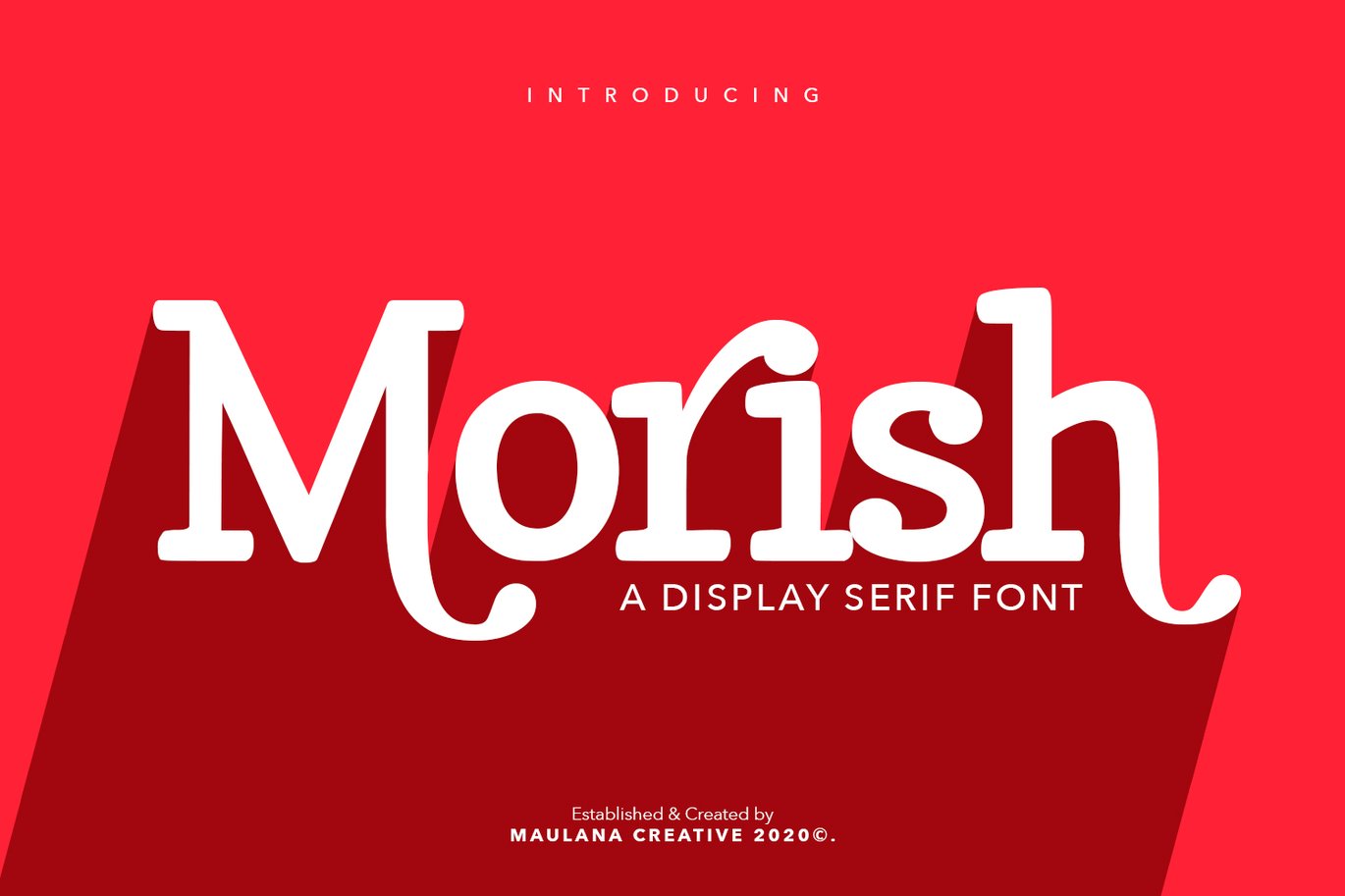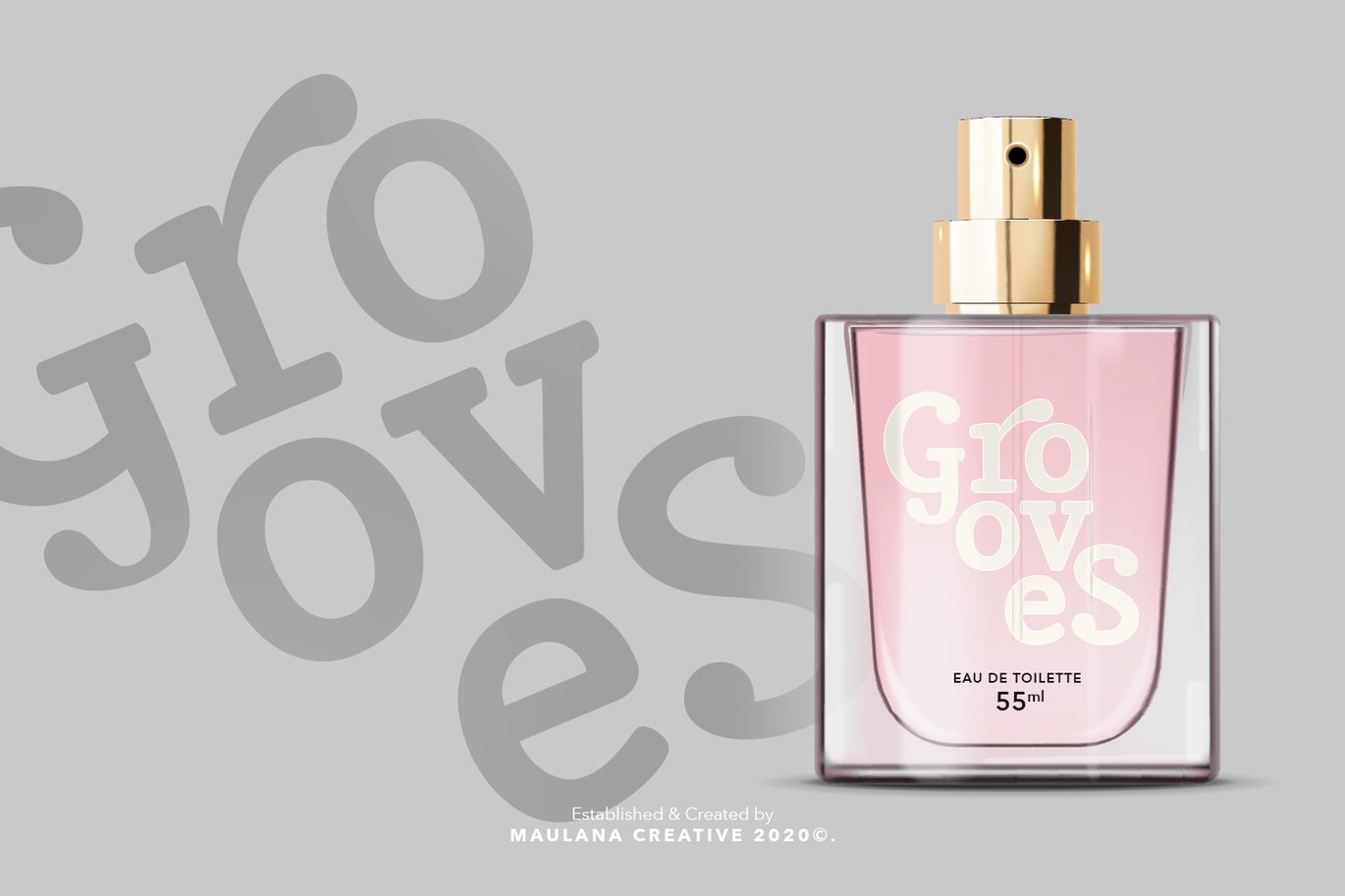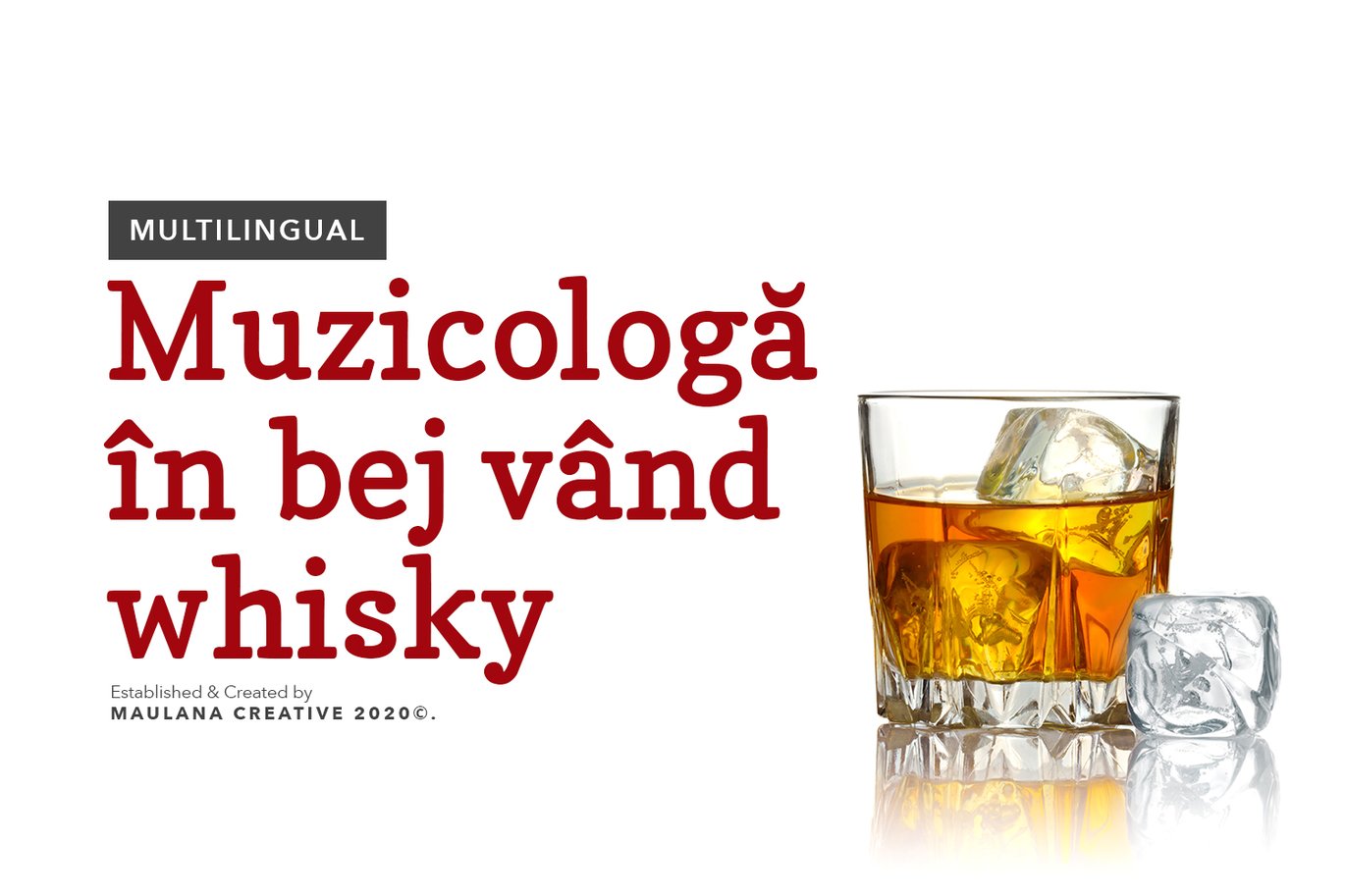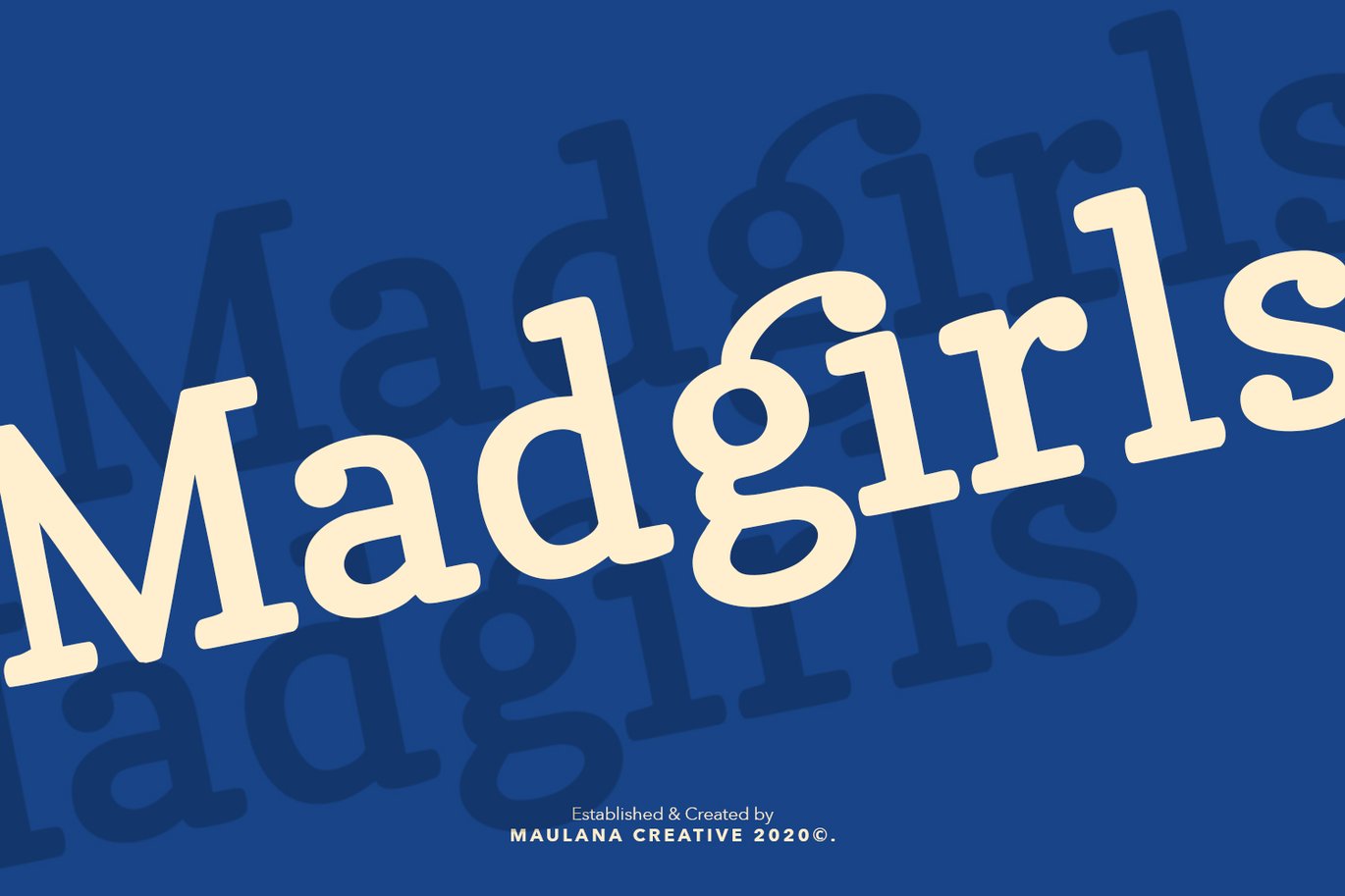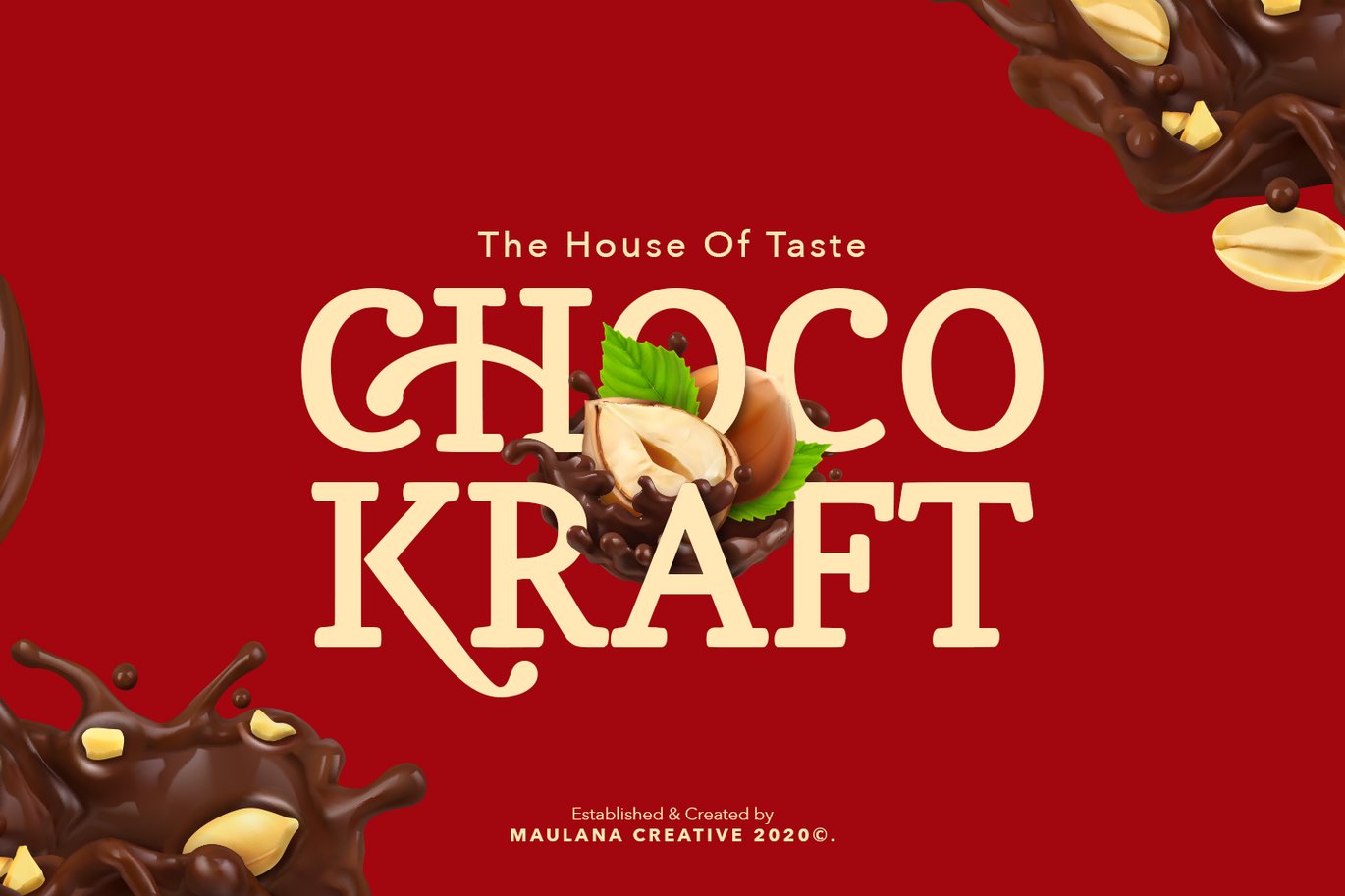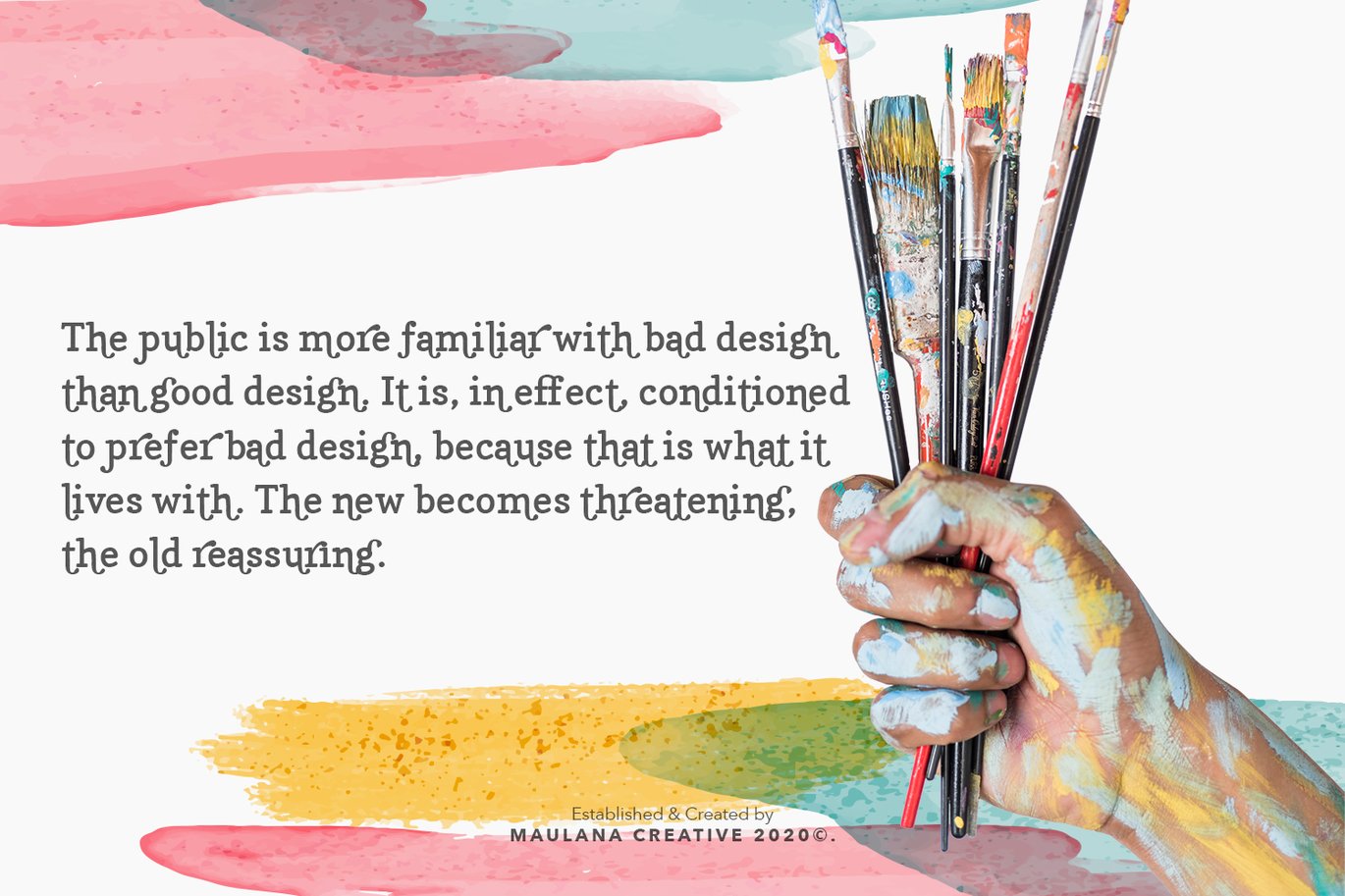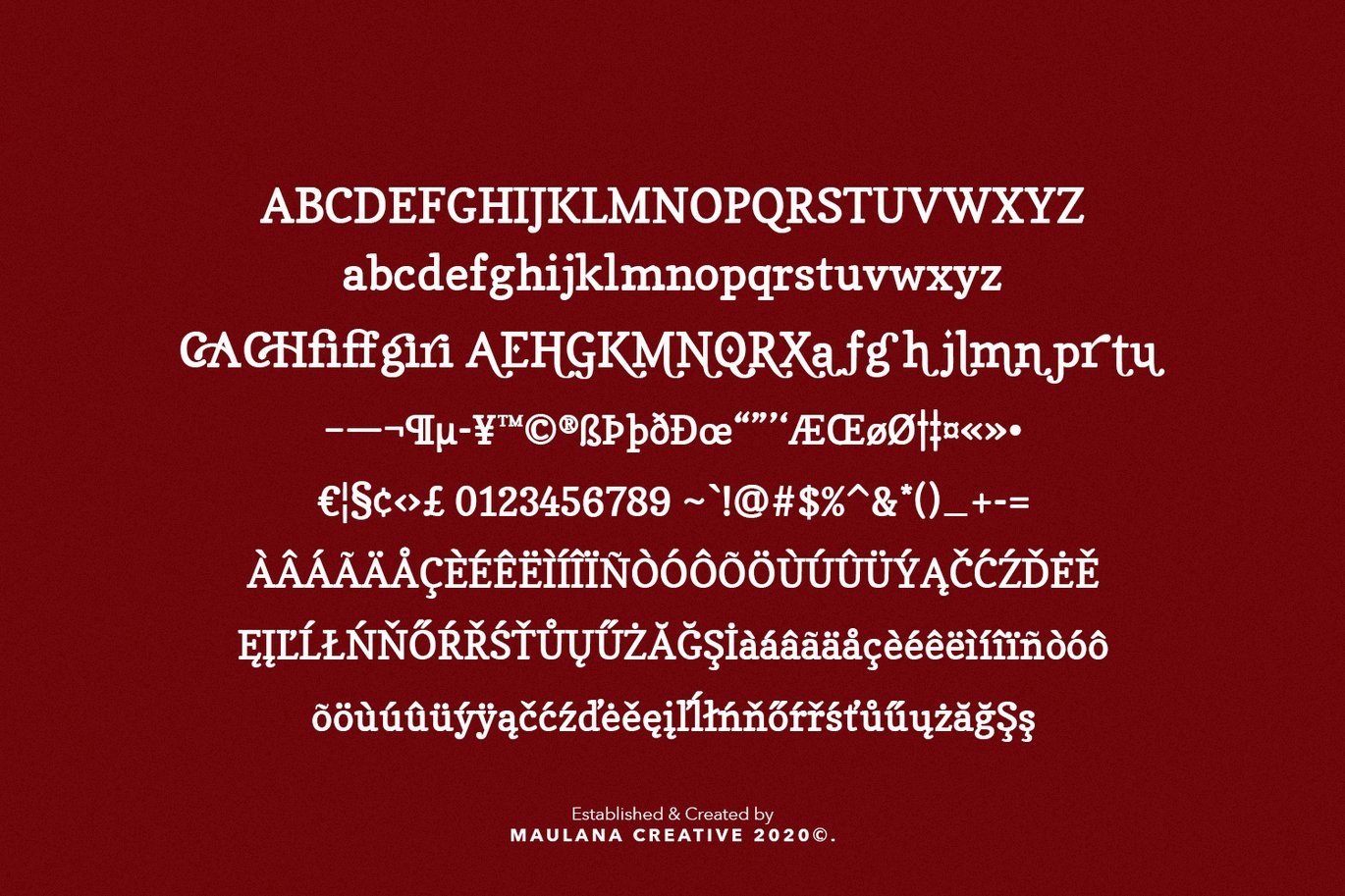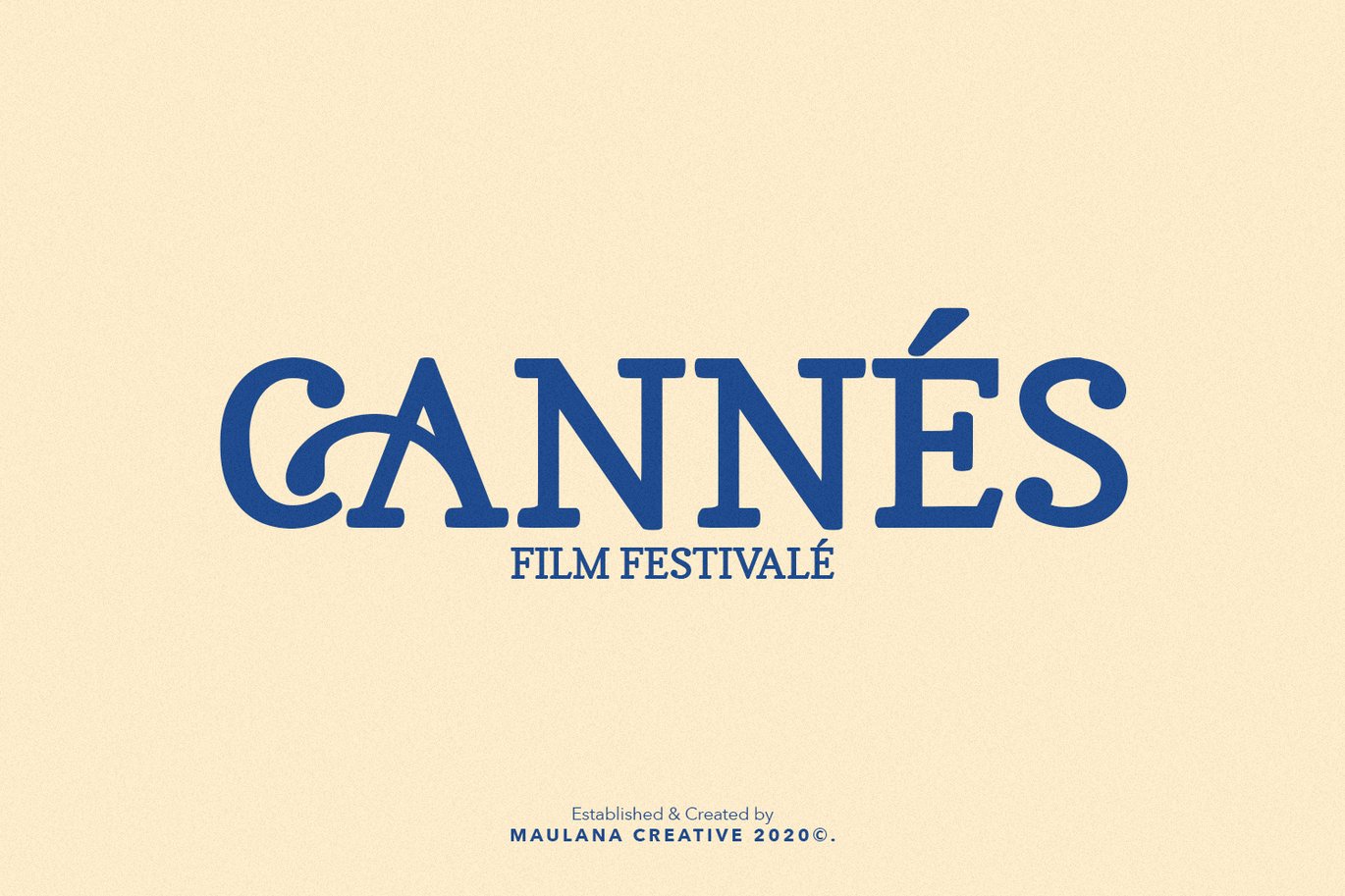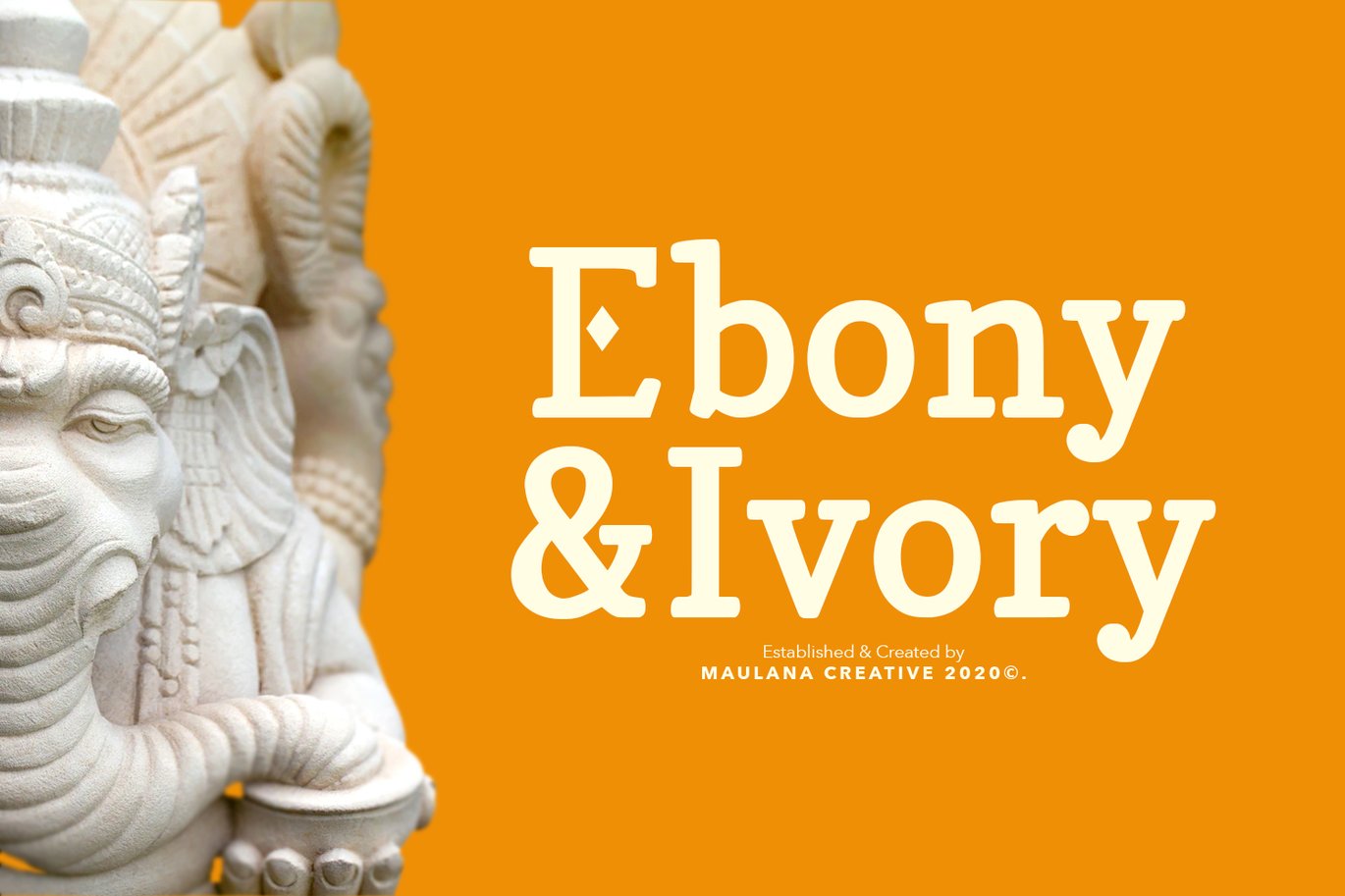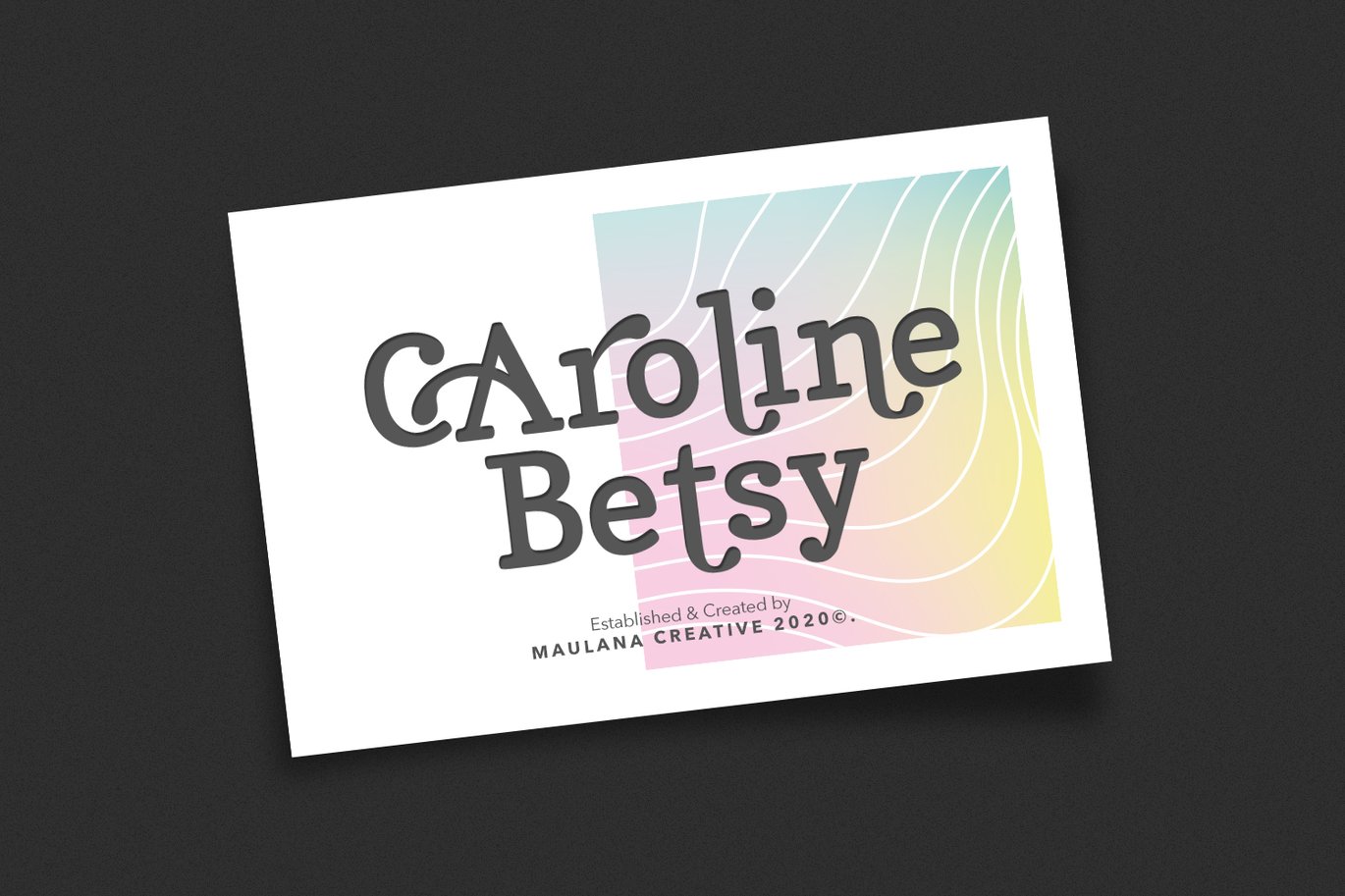
Morish Display Serif Handmade Font Ligature Type
Unique, playful and versatile serif family with ligatures and alternates that you can combine to get curves and beautiful shapes just in seconds.
This font is suitable for use in many design forms, for example magazines, postcards, logos, DIY Projects, invitation card, quotes, vintage look design, old classic ,60s, 70s, 80s era, wedding projects and much more. We recommend using Adobe Illustrator or Photoshop.